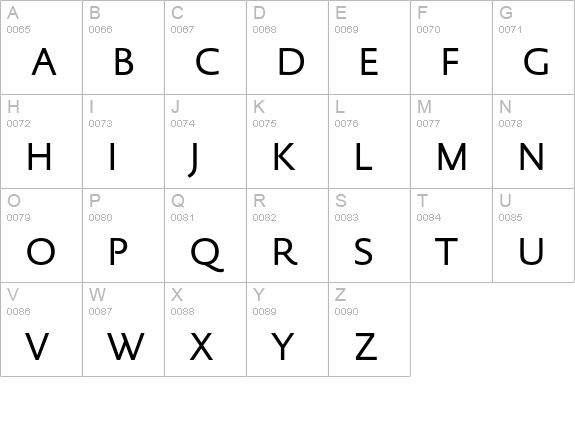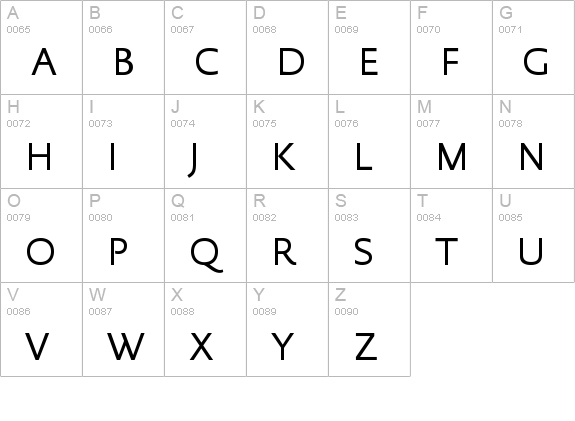
DTL Documenta SansT is a modern and versatile sans-serif font that combines clean lines with a touch of sophistication. Its sleek and stylish design makes it perfect for a wide range of projects, from branding to editorial design. The font features a full range of weights and styles, allowing for flexibility and creativity in your typographic compositions. One of the most appealing aspects of DTL Documenta SansT is that it is available for free download at FontsMarket.com. This means that you can easily access this high-quality font without any cost, making it a valuable addition to your font library. Whether you are a designer looking for a reliable and elegant typeface or a business owner in need of a professional font for your marketing materials, DTL Documenta SansT has you covered. Download this font today and elevate your designs with its timeless appeal.